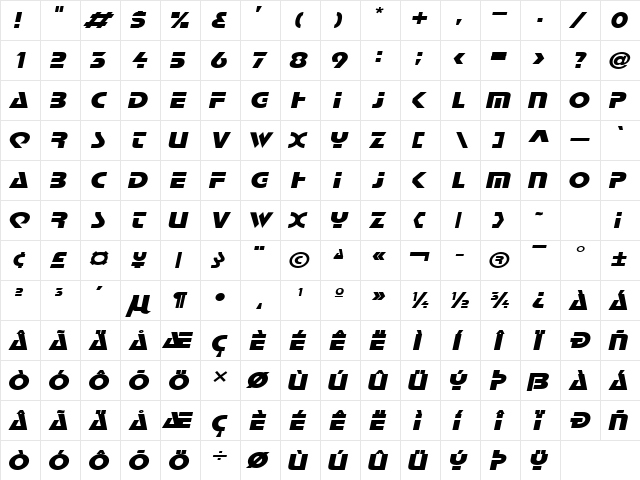
Scottsdale Wide Italic
Design Context for Scottsdale Wide Typeface
Scottsdale Wide is a composed and adaptable typeface that performs quietly and consistently across a wide range of design contexts. Its italic angle brings a sense of urgency and motion to the letterforms.
Pro Tip: Use Scottsdale Wide for emphasis, pull quotes, and subheadings where its slanted energy can add rhythm to the layout.